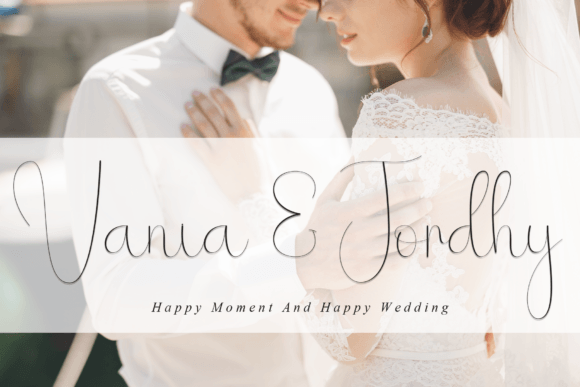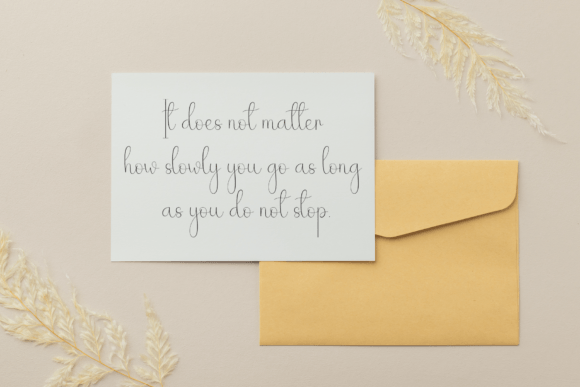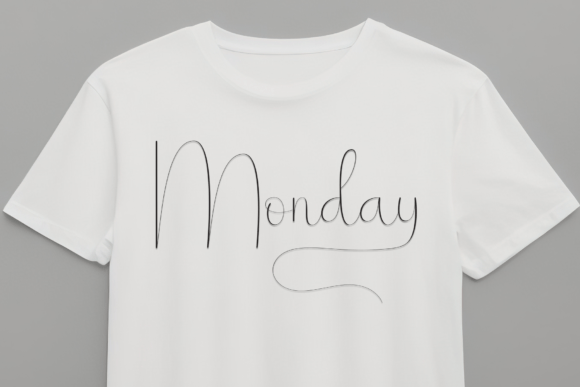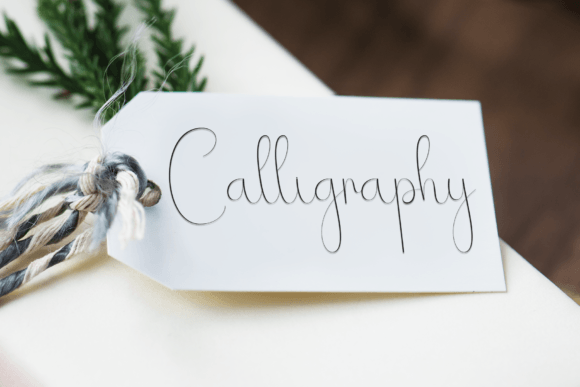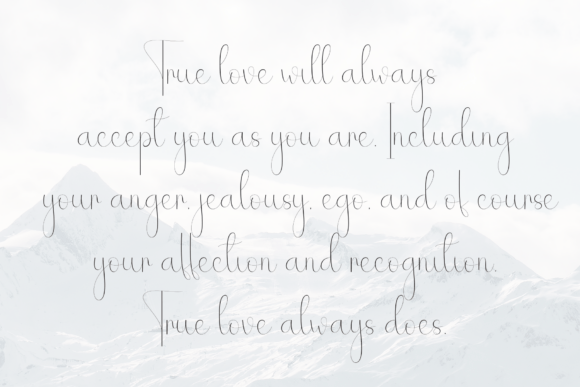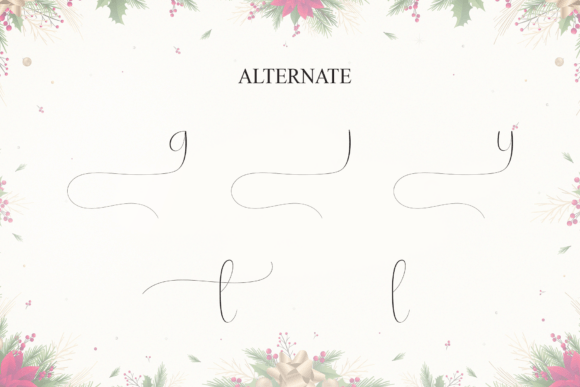
Do you ever get that moment when you’re working on a project and you just know it’s missing something special? For designers, that moment can be a game-changer. You’re pouring your heart and soul into a beautiful wedding invitation or a heartfelt greeting card, but it’s just not quite there. That’s where the Beauty Christmas Font comes in – a handcrafted display font that exudes sweetness and affability.
Expertly crafted to add a dash of fun to any design, this adorable font is perfect for personal projects that need a little extra love. With its whimsical charm, the Beauty Christmas Font is a valuable addition to any designer’s toolkit, allowing you to unleash your imaginative side and create truly unique and special designs.
Beauty Christmas Font Key Features
- Unique Characteristics: The font features intricate and ornate designs, making it perfect for festive and holiday-themed projects
- Script and Stylistic Sets: Includes 3 script and 4 stylistic sets to add variety and interest to your designs
Beauty Christmas Font Review
Overall, I think the Beauty Christmas Font is a great choice for festive holiday projects. It has a lovely ✨ whimsical feel to it, perfect for creating a magical atmosphere. The font is well-suited for use in posters, invitations, and other promotional materials.
- The font is highly customizable, allowing you to adjust the size, color, and spacing to suit your design needs.
- The font is highly legible, even at smaller font sizes, making it perfect for use in larger text blocks.
- The font is available in a range of styles, including bold, italic, and underlined, which can add variety to your designs.
- The font may not be suitable for use in formal or professional settings, as it has a more playful feel.
- The font is not available in as many languages as some other fonts, which may limit its use in multilingual designs.
- The font is not a single, unified style, but rather a collection of individual characters and glyphs.
Overall, I would recommend the Beauty Christmas Font for use in festive holiday projects where a playful, whimsical feel is desired. Just be aware of the potential limitations and take steps to ensure compatibility and legibility.
For the best results, use the Beauty Christmas Font in conjunction with festive graphics and colors.
Experiment with different font sizes and styles to add visual interest to your design.
The Beauty Christmas Font is ideal for:
- Christmas card designs
- Holiday marketing materials
- Winter-themed social media graphics
Alternatives to “Beauty Christmas Font” for Designers
1. Great Vibes Christmas Font
Great Vibes Christmas Font is a beautiful, elegant script font perfect for creating a warm and festive atmosphere. It’s ideal for invitations, greeting cards, and holiday-themed social media posts. Compared to Beauty Christmas Font, Great Vibes Christmas Font has a more refined and sophisticated look, making it suitable for high-end designs.
Carolyna Pro is a modern, elegant font that exudes a sense of luxury and sophistication. It’s perfect for creating high-end holiday designs, such as luxury invitations, gift tags, and packaging. Compared to Beauty Christmas Font, Carolyna Pro has a more contemporary look and feel, making it ideal for designers who want to create modern and trendy designs.
Alex Brush is a beautiful, elegant script font that’s perfect for creating a warm and inviting atmosphere. It’s ideal for invitations, greeting cards, and holiday-themed social media posts. Compared to Beauty Christmas Font, Alex Brush has a more relaxed and casual look, making it suitable for designers who want to create a cozy and intimate feel.